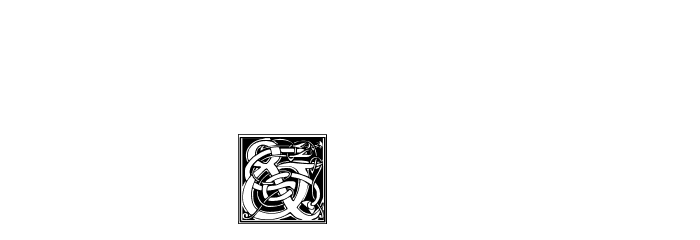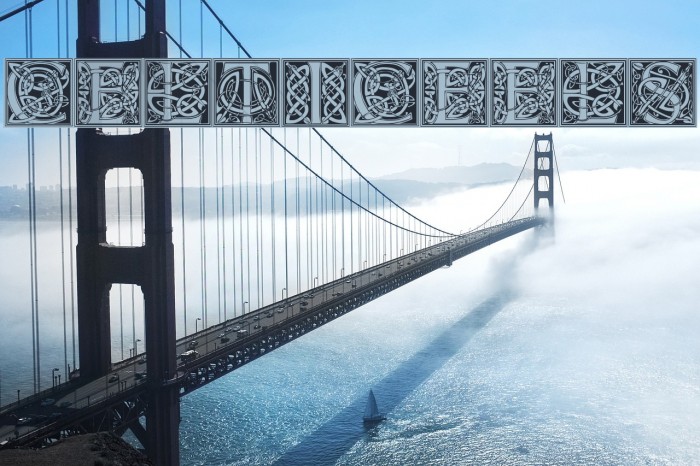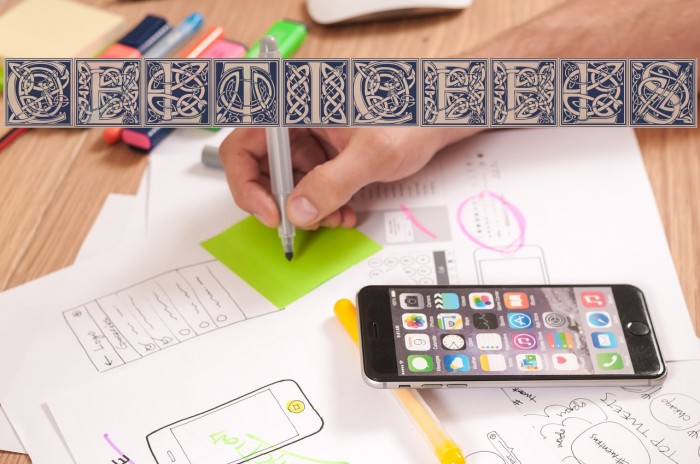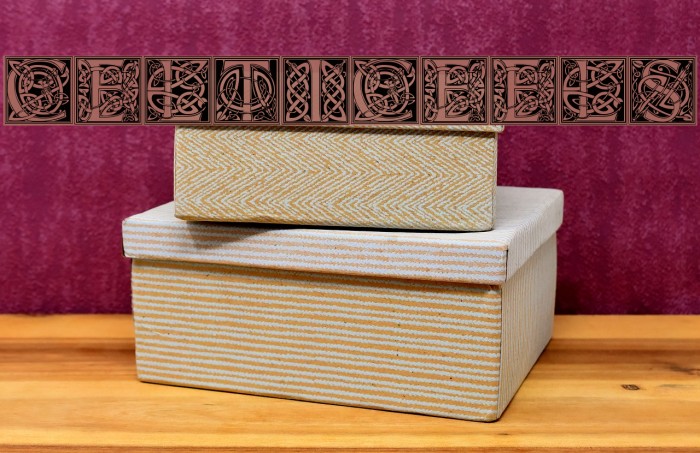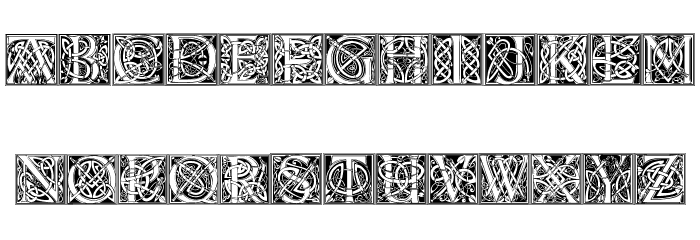
CelticEels Font
This font is a highly decorative and intricate typeface inspired by Celtic art. Each character is adorned with elaborate knotwork and interlacing patterns, reminiscent of ancient Celtic manuscripts. The letters are enclosed within square borders, adding a structured yet ornate appearance. The detailed design makes it visually striking, capturing the essence of traditional Celtic aesthetics. This font is not only a representation of letters but also a piece of art, with each character offering a unique and complex design that draws the eye.
An intricate, Celtic-inspired decorative font with elaborate knotwork.
• Proposed Projects: Ideal for projects requiring a historical or cultural touch, such as themed invitations, posters, or book covers related to Celtic history or mythology.
• Category: Decorative/Display
• Contrast: High
• Overall Style: Decorative
• Use Case: Logos, Headlines, Decorative purposes